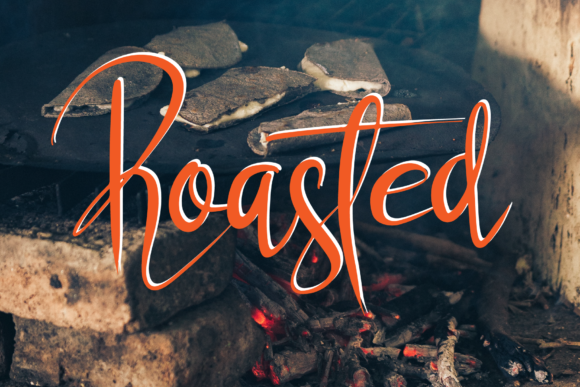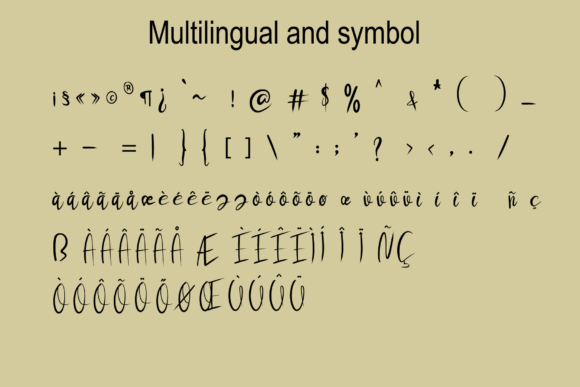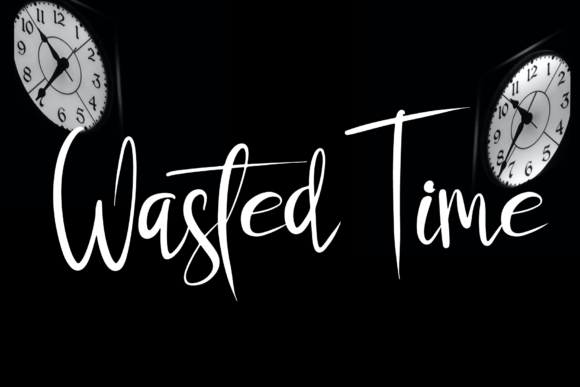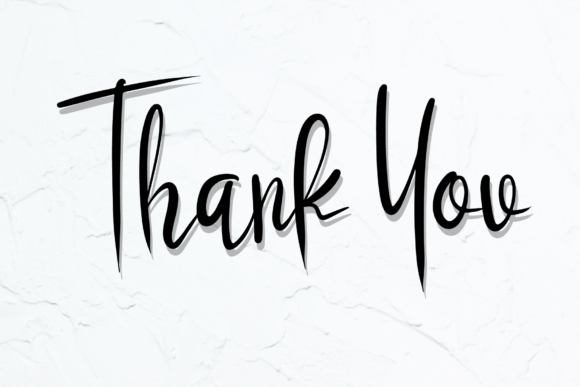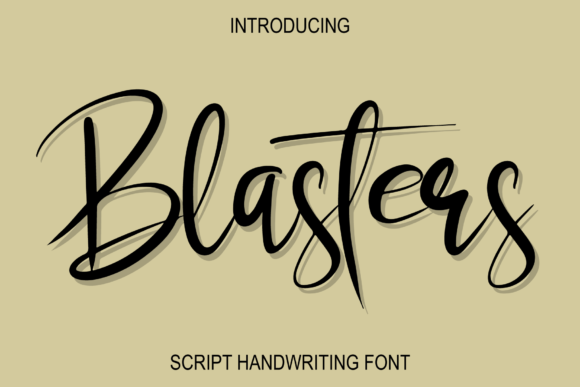
Introducing Blasters Font: Elevate Your Designs with Elegance and Sophistication
Are you a designer or crafter looking for a font that exudes class, elegance, and modernity? Look no further than Blasters Font! This beautiful and refined script font is perfect for a wide range of design projects, from logos and branding to invitations, stationery, wedding designs, social media posts, and more.
What Makes Blasters Font So Special?
Blasters Font boasts a unique blend of classic sophistication and modern flair, making it an ideal choice for designers and crafters who want to create stunning visual content. Its elegant and refined appearance is sure to elevate your designs and leave a lasting impression on your audience.
Key Features of Blasters Font
- Classy and Elegant: Blasters Font features a sophisticated and refined design that’s perfect for high-end branding, luxury logos, and elegant wedding designs.
- Modern Look: With its clean lines and modern aesthetic, Blasters Font is ideal for designers who want to create fresh and contemporary visual content.
- Versatile: This font is perfect for a wide range of design projects, from logos and branding to social media posts, invitations, and more.
- Easy to Read: Blasters Font is designed to be highly legible, making it perfect for body text, headings, and titles.
Use Cases for Blasters Font
Blasters Font is an incredibly versatile font that can be used for a wide range of design projects, including:
- Logos and Branding: Create a lasting impression with a custom logo or brand identity that showcases your business’s unique personality.
- Invitations and Stationery: Add a touch of elegance to your invitations, business cards, and letterheads with Blasters Font.
- Wedding Designs: Make your wedding designs truly unforgettable with Blasters Font’s beautiful and refined script.
- Social Media Posts: Elevate your social media presence with stunning visual content that showcases your brand’s personality and style.
Why Choose Blasters Font?
With so many fonts available, why choose Blasters Font? Here are just a few reasons why designers and crafters love this beautiful script font:
- Unique and Exclusive: Blasters Font is a one-of-a-kind font that’s sure to make your designs stand out from the crowd.
- High-Quality: This font is designed to deliver exceptional results, with crisp and clean lines that look amazing on any device.
- Easy to Use: Blasters Font is incredibly easy to use, with a simple and intuitive design that’s perfect for designers of all skill levels.
In conclusion, Blasters Font is an exceptional script font that’s perfect for designers and crafters who want to create stunning visual content. With its classy, elegant, and modern look, this font is sure to elevate your designs and leave a lasting impression on your audience. Whether you’re creating logos, branding, invitations, stationery, wedding designs, social media posts, or more, Blasters Font is the perfect choice.